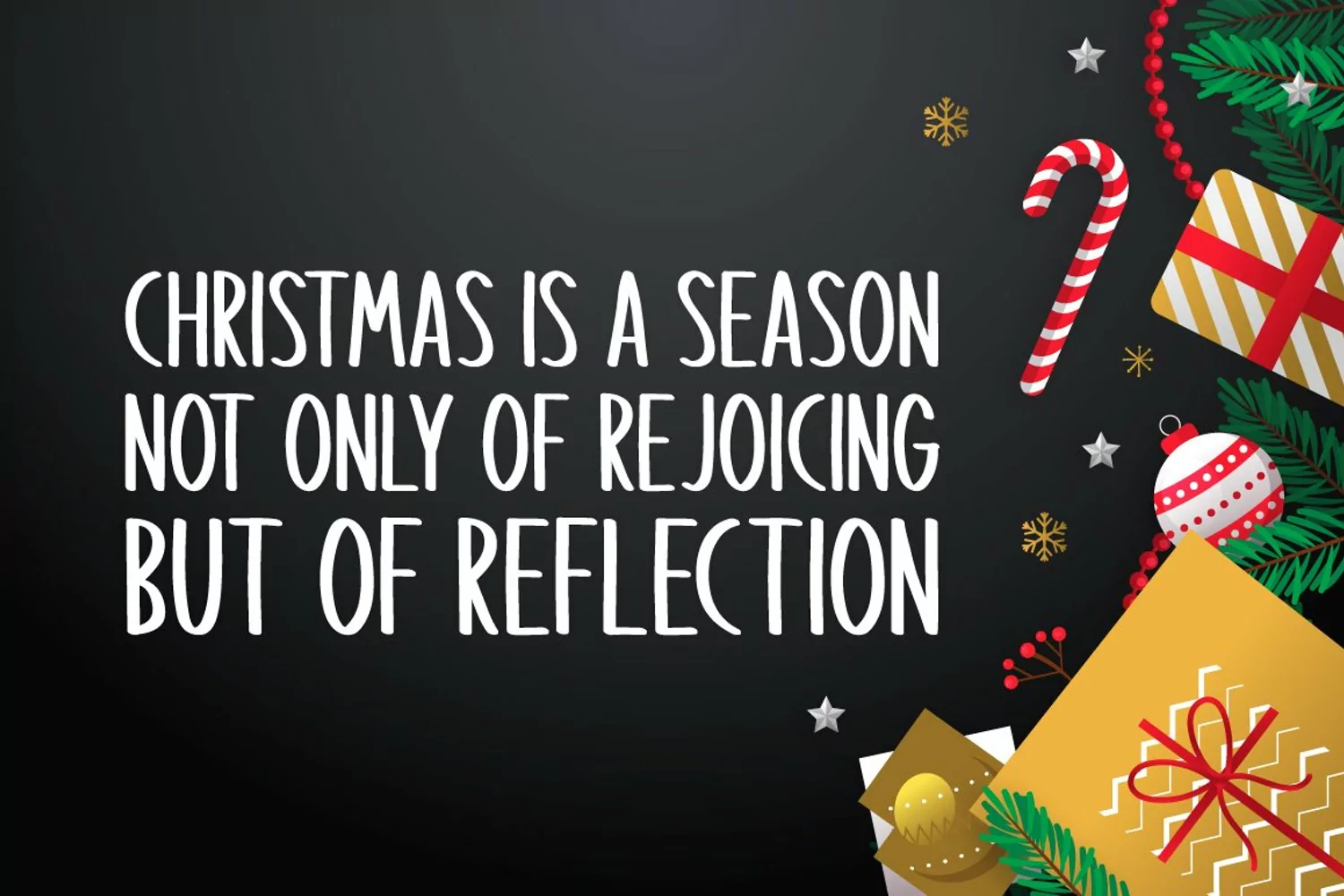
Introducing Christmas Holiday!
Christmas Holiday is a brand new handwritten font. Christmas Holiday is perfectly suited for stationery, logos, t-shirt, paper, print design, website header, photo frame, flyer, music cover, poster, image slider, and much more.
Includes a range of multilingual support